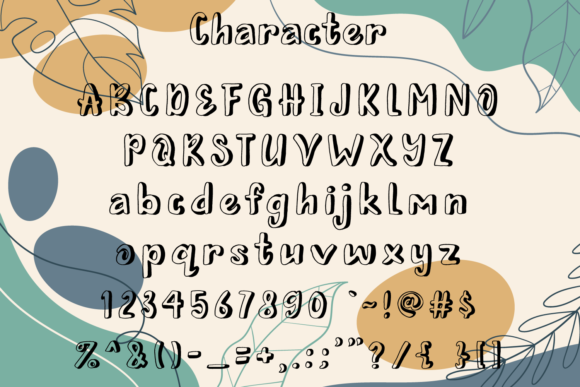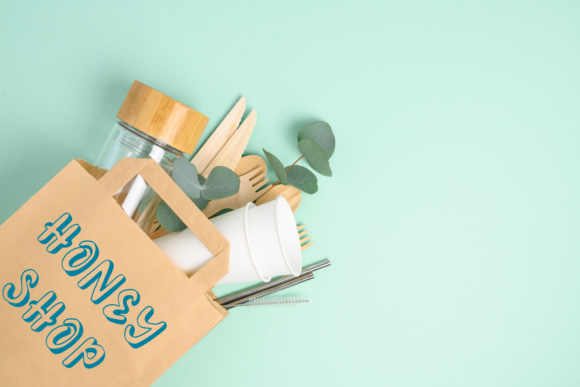
Introduction to Honey Mountain Font
Have you ever found yourself staring at a blank page, wondering how to bring your creative project to life? The perfect design can make all the difference, but sometimes it’s hard to find that special something that sets your work apart. That’s where the Honey Mountain Font comes in – a playful and magical display font that’s sure to add a touch of whimsy to your designs.
As a valuable resource for designers, the Honey Mountain Font is a high-quality addition to any creative toolkit. With its transparent background and unique character, it’s the perfect choice for adding a bit of personality to your projects. Whether you’re working on a branding campaign or a personal art piece, this font is sure to bring a smile to your face and inspire your creativity.
Key Features of Honey Mountain Font
- High-quality, unique design: Honey Mountain Font is a creative resource that offers a distinctive and stylish look for your projects.
- Transparent background: This feature allows for seamless integration with your design, making it easy to layer and customize.
- Perfect for creative projects: Honey Mountain Font is ideal for use in branding, logos, graphics, and other design elements that require a touch of elegance and sophistication.
- High-resolution design: With a resolution of 300 DPI, Honey Mountain Font is suitable for both digital and print applications, ensuring crisp and clear results.
- Easy to customize: The font’s unique design makes it easy to experiment with different colors, sizes, and styles to create a one-of-a-kind look for your project.
Honest Review: Honey Mountain Font
- ✨ The font’s unique, modern design makes it perfect for a variety of creative projects, from logos to branding materials.
- ✨ The transparent background allows for seamless integration with any background image or color.
- ✨ The font is highly legible, even at smaller font sizes, making it ideal for digital designs.
- ⚠️ The font is only available in a single weight, which might limit its versatility for certain design applications.
- ⚠️ Some users might find the font’s modern aesthetic too trendy or overused, which could impact its longevity.
Overall, I’m impressed with the Honey Mountain Font’s quality and design. While it may have some limitations, it’s a great free download for designers looking to add some creativity to their projects. With its unique design and transparent background, it’s definitely a valuable addition to any design resource library.
To get the most out of the Honey Mountain Font, use it sparingly and in combination with other design elements. Experiment with different font sizes, styles, and colors to create a unique and visually appealing design.
The Honey Mountain Font is perfect for a variety of creative projects, including social media graphics, blog posts, and marketing materials. Its transparent background makes it ideal for overlaying text on images or videos, creating a high-quality and professional-looking design.
Does the Honey Mountain Font have a transparent background?
No, the Honey Mountain Font does not have a transparent background. However, you can use a design application like Adobe Illustrator or Canva to create a transparent background effect if needed for your creative project.